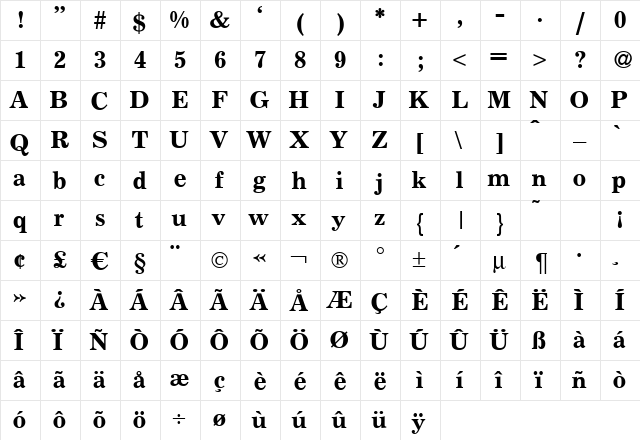
P821-Roman Regular
Design Context for P821-Roman Typeface
P821-Roman is a composed and adaptable typeface that performs quietly and consistently across a wide range of design contexts.